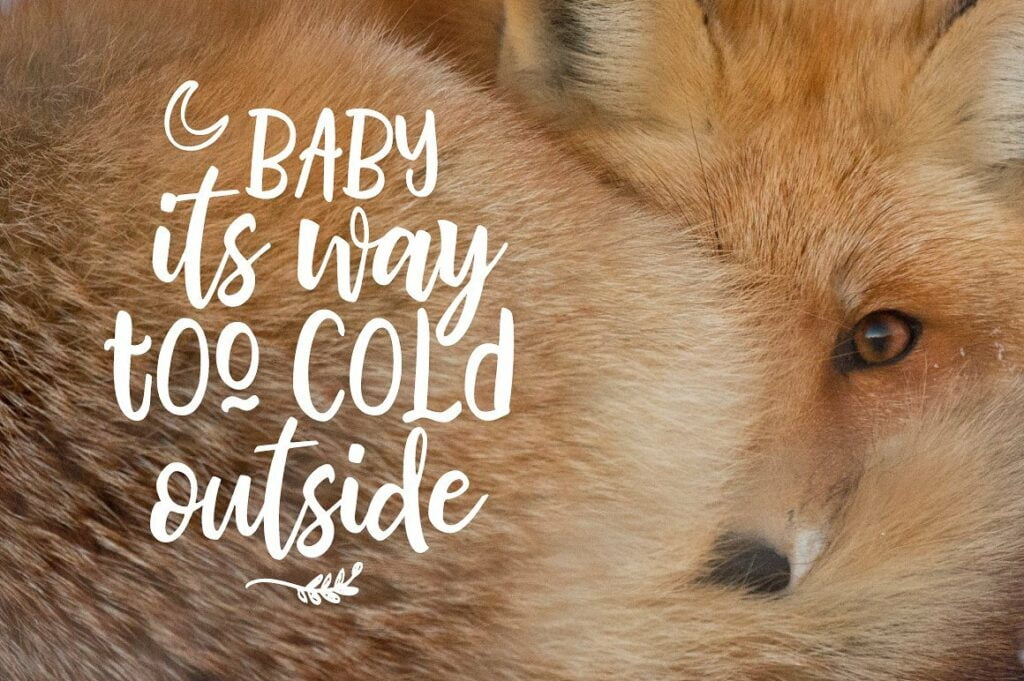
Bhatoshine Font
Introducing Bhatoshine Font! Bhatoshine designed by Typia Nesia, this is a premium font, are sold on creativemarket, but it was great, it is free today for download. Bhatoshine Fancy Font Duo. A hand brushed, fun, warm, and cozy typeface duo with extras. These 2 hand brushed fonts are perfectly combine with one another. The Bhatoshine Regular font combines with the Bhatoshine Caps font to make each word unique, and BOOM! The beautiful typography!